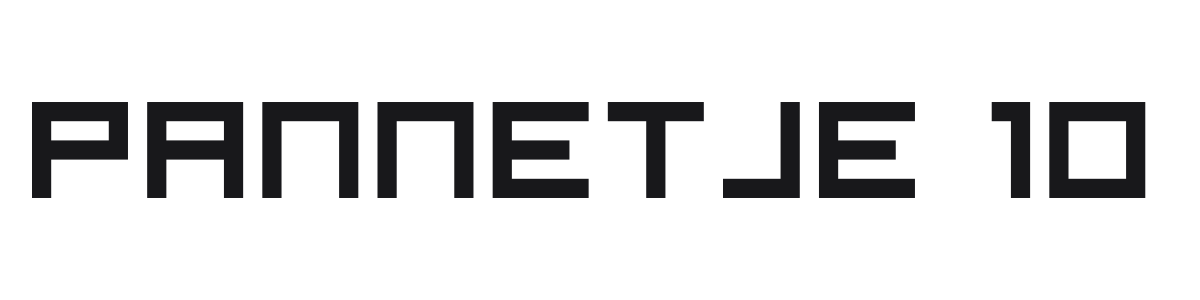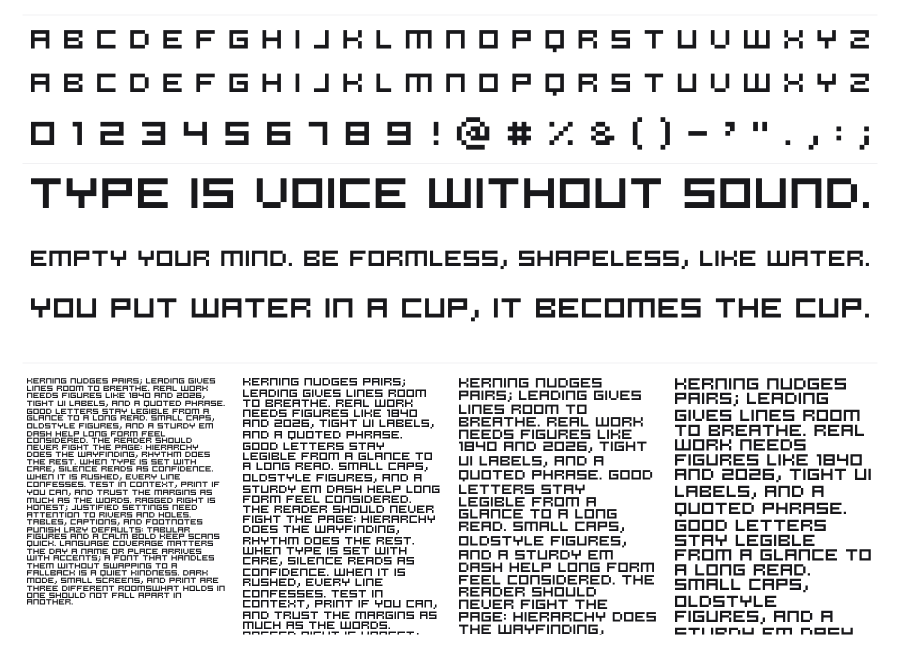
Pannetje 10
by Peter Radix
Pannetje 10 is a bold pixel-grid font built from squared block segments that mimic early computer display characters. Every stroke is the same weight and every terminal is flat and square, giving it a strict, utilitarian feel rooted in early digital typography. It works well wherever a retro-tech or gaming aesthetic is needed at display sizes.